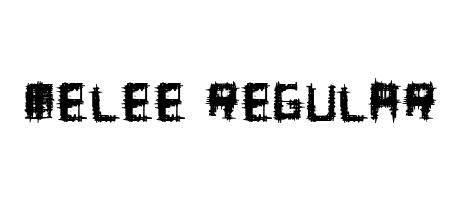
Melee
By Bionic Type
Melee Regular: A bold, heavily textured typeface. Its blocky letterforms are aggressively distressed, each edge frayed and rough like a worn stone carving. The overall effect is raw, powerful, and slightly chaotic, hinting at a grittier, more primal aesthetic. It feels simultaneously vintage and modern, a rugged counterpoint to smoother, cleaner fonts.